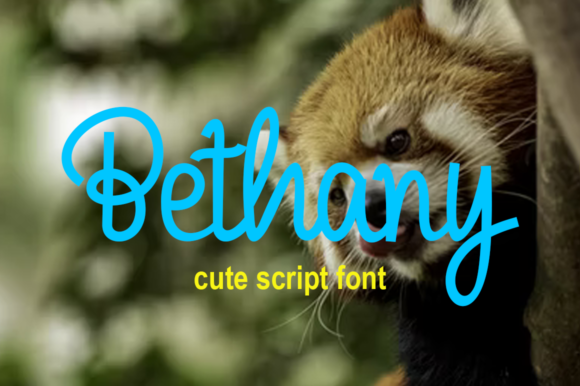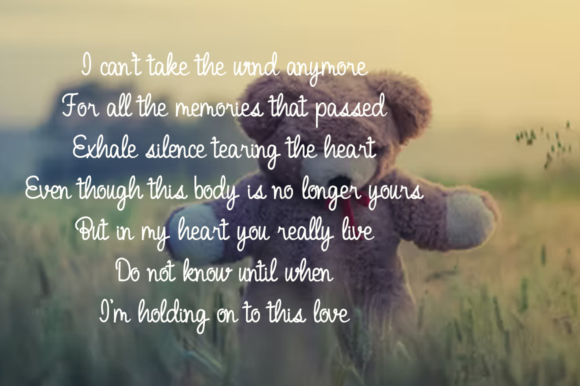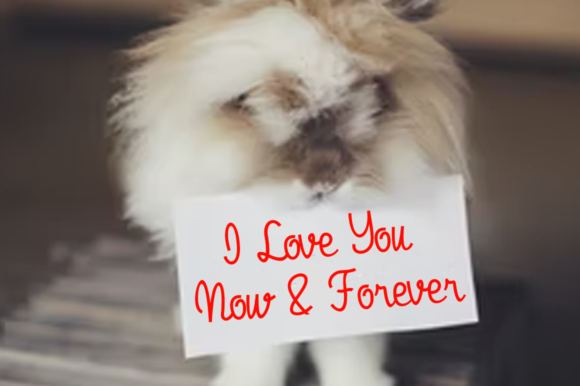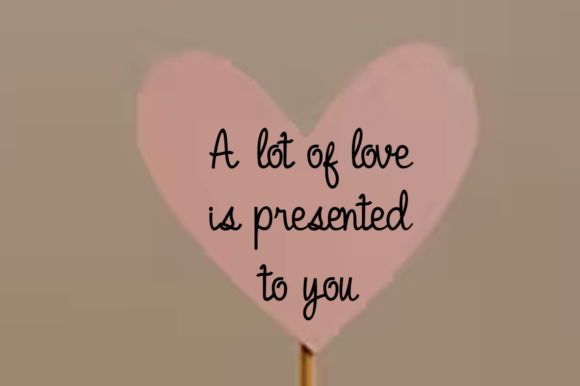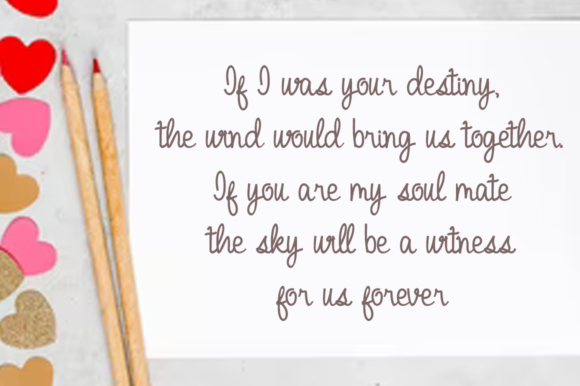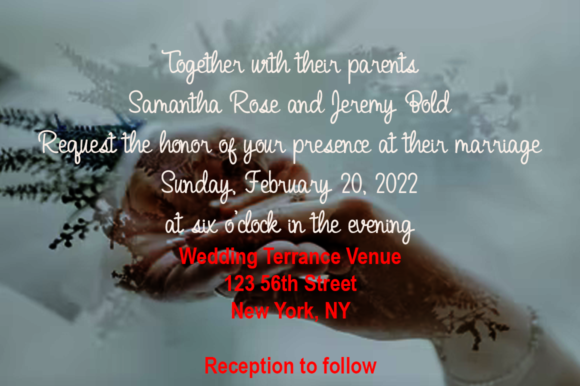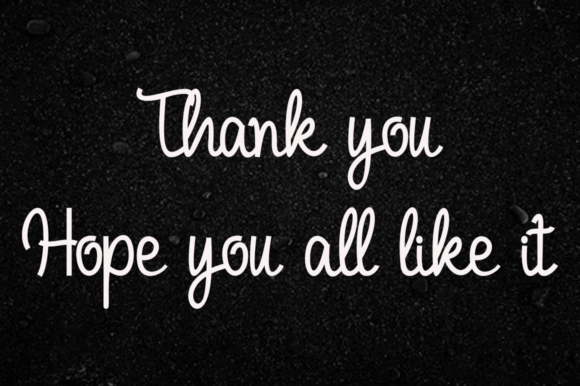
Bethany Font
About Bethany Font
“Bethany” is a cute handwritten script font.
If you need casual and modern calligraphy for your designs – this font was created for you!